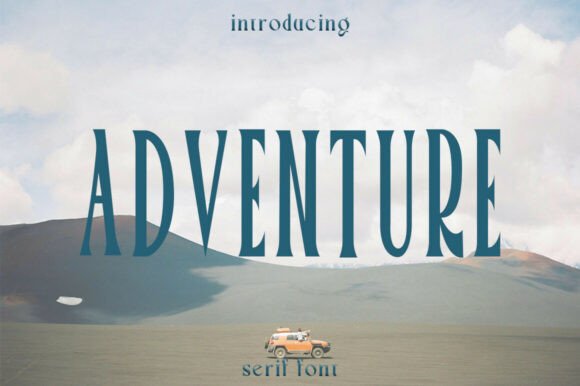
The Adventure Font: A Serif Journey of Elegance and Exploration
Have you ever been in the midst of a design project, and suddenly, the perfect font just seems elusive? I recall a particularly frustrating moment when I was working on a branding project for a travel company. The client wanted a font that exuded both professionalism and a sense of adventure. After hours of scouring through font libraries, I stumbled upon the Adventure Font. It was as if the stars had aligned – this serif font blended classic style with a spirit of exploration, making it an instant hit for my project.
Unpacking the Adventure Font
The Adventure Font is designed with elegant details and balanced letter proportions, making it suitable for a variety of design needs. It features bold serifs with soft edges, creating a tough yet friendly impression. Each letter is crafted for high readability, both in large sizes for headlines and in long paragraphs. This versatility makes it a valuable addition to any designer’s toolkit.
Honest Review: The Good and the Quirks
- ✨ Elegant and classic design with a touch of adventure
- ✅ High readability in various sizes
- ✅ Bold serifs with soft edges for a unique look
- ✅ Suitable for both headlines and long paragraphs
- ⚠️ Limited availability of stylistic alternates
- 🤔 May not be the best fit for extremely informal or playful designs
The Designer Inspiration Behind Adventure Font
The Adventure Font was crafted with the vision of blending traditional serif elements with a sense of exploration and freedom. Inspired by vintage travel posters and classic literature, the font aims to evoke a feeling of adventure and elegance. The designer sought to create a font that was not only beautiful but also versatile, capable of being used in a variety of contexts, from travel branding to editorial design.
Q: What makes Adventure Font unique?
A: The Adventure Font stands out due to its blend of classic serif elements with a spirit of exploration, making it perfect for designs that require both professionalism and a sense of adventure.
Q: Does Adventure Font support OpenType features?
A: Yes, the Adventure Font supports OpenType features, including ligatures and stylistic alternates, which can be accessed through compatible design software.
Q: Is Adventure Font suitable for body text?
A: Absolutely! The Adventure Font is designed for high readability, making it an excellent choice for both headlines and long paragraphs.